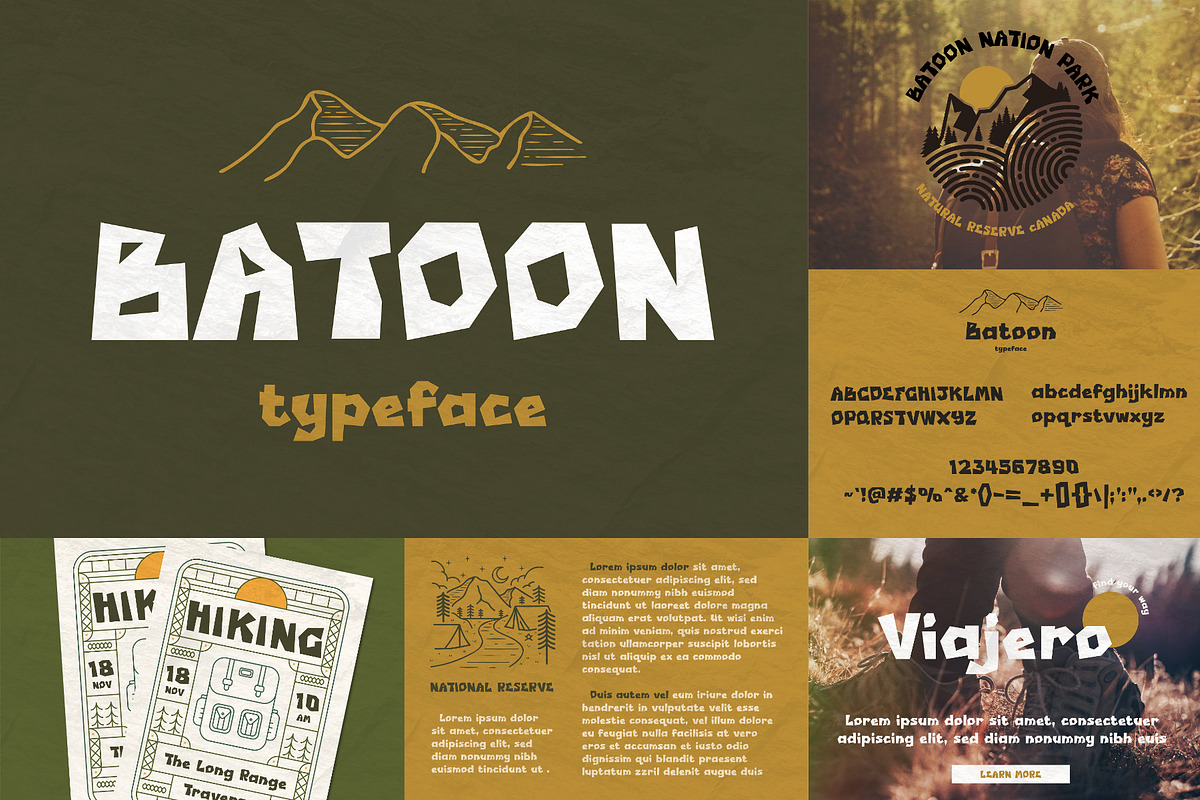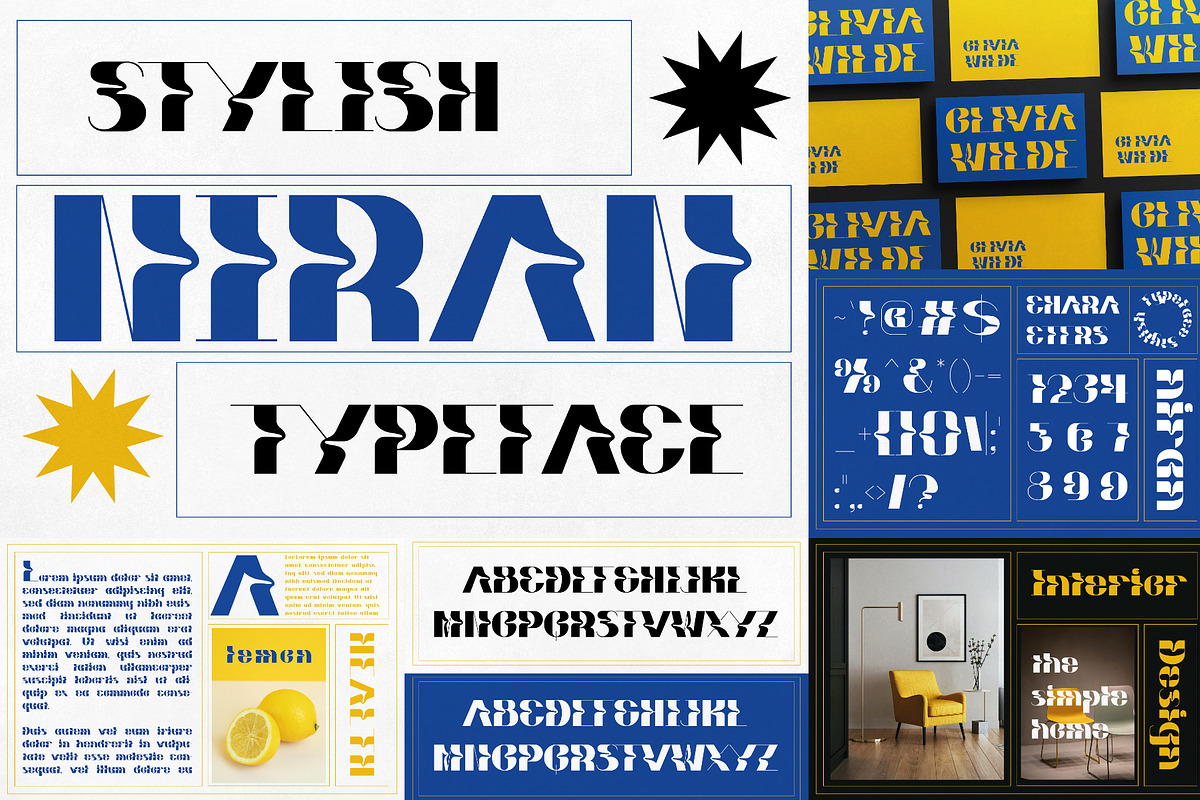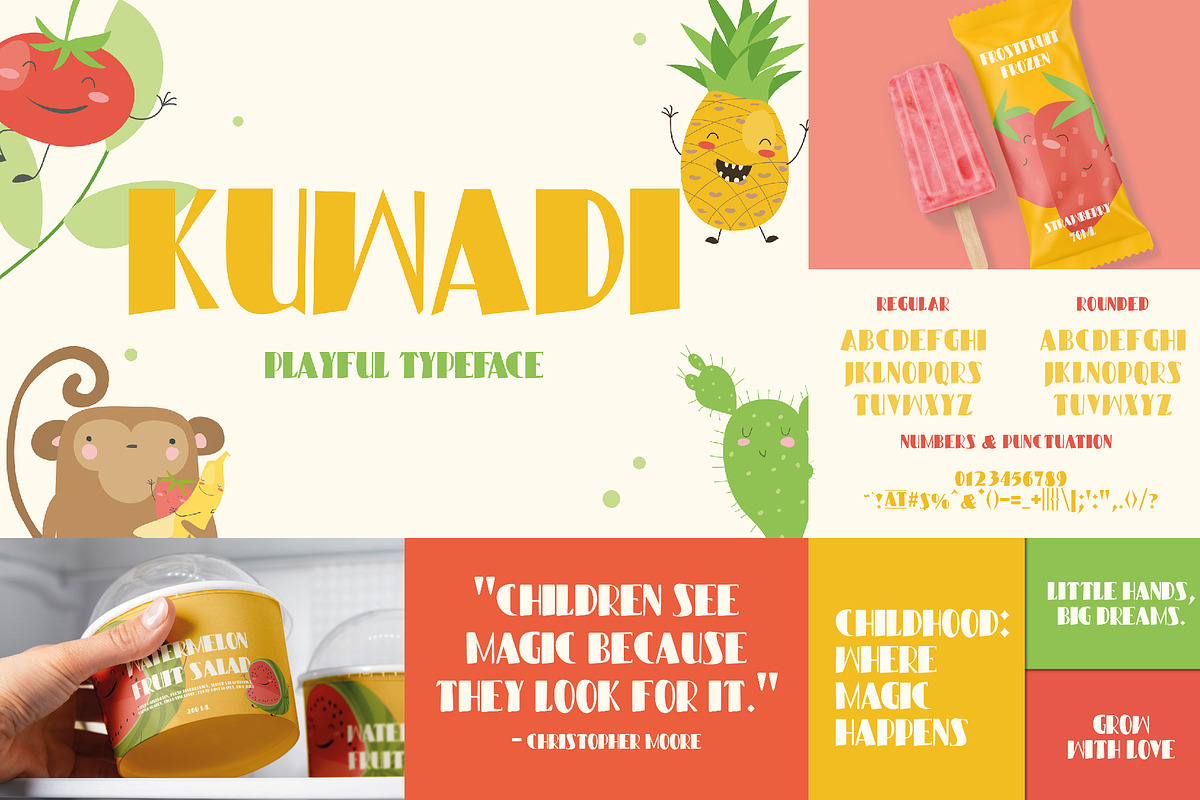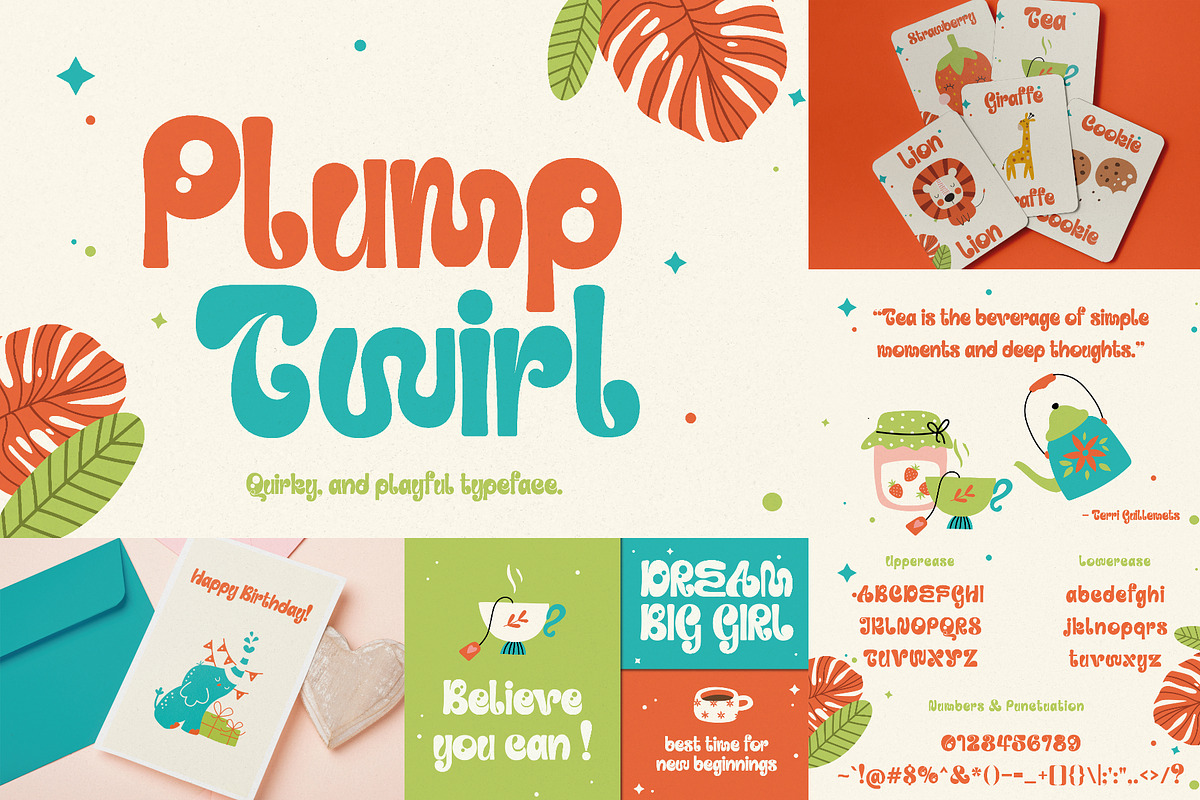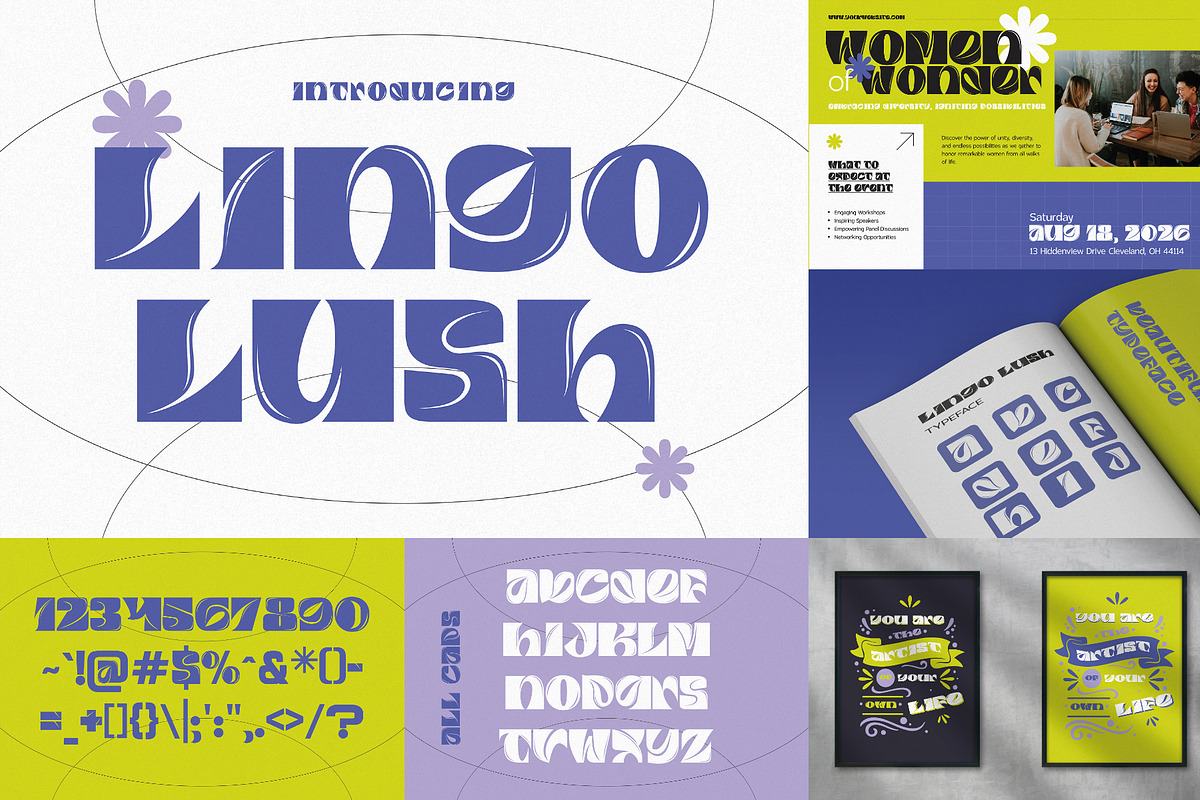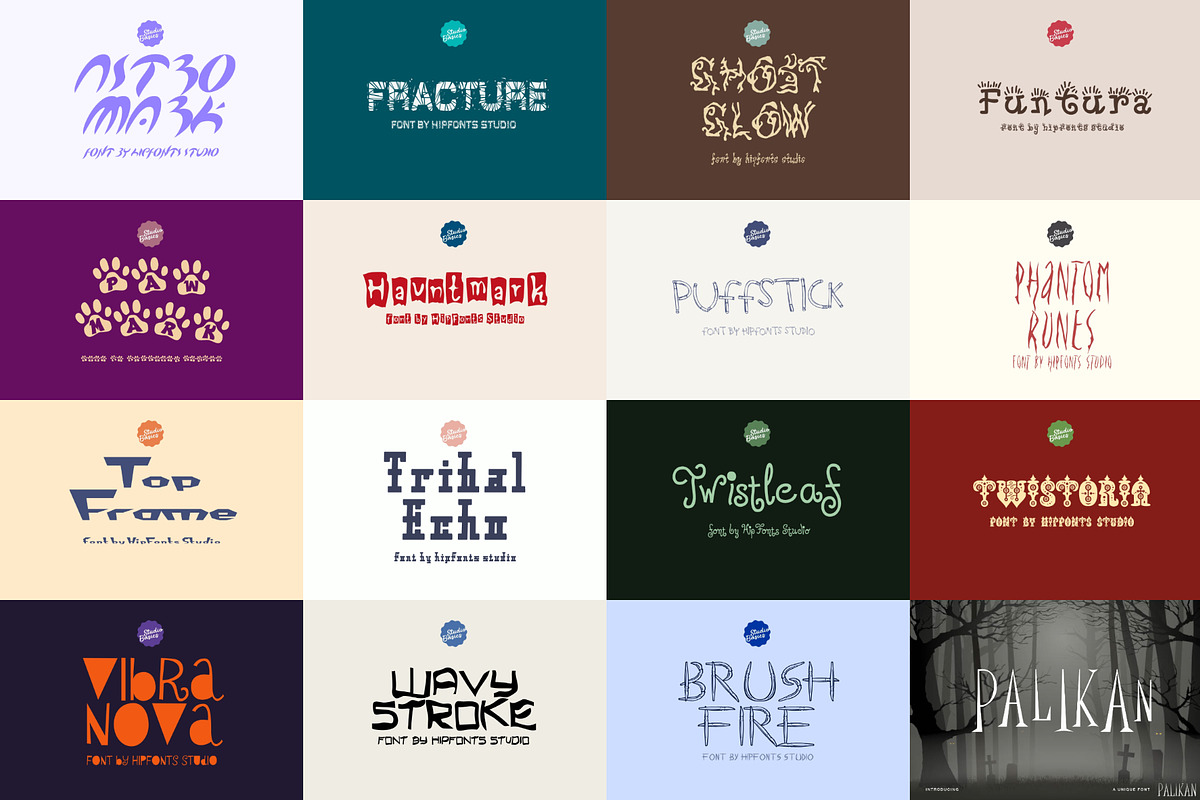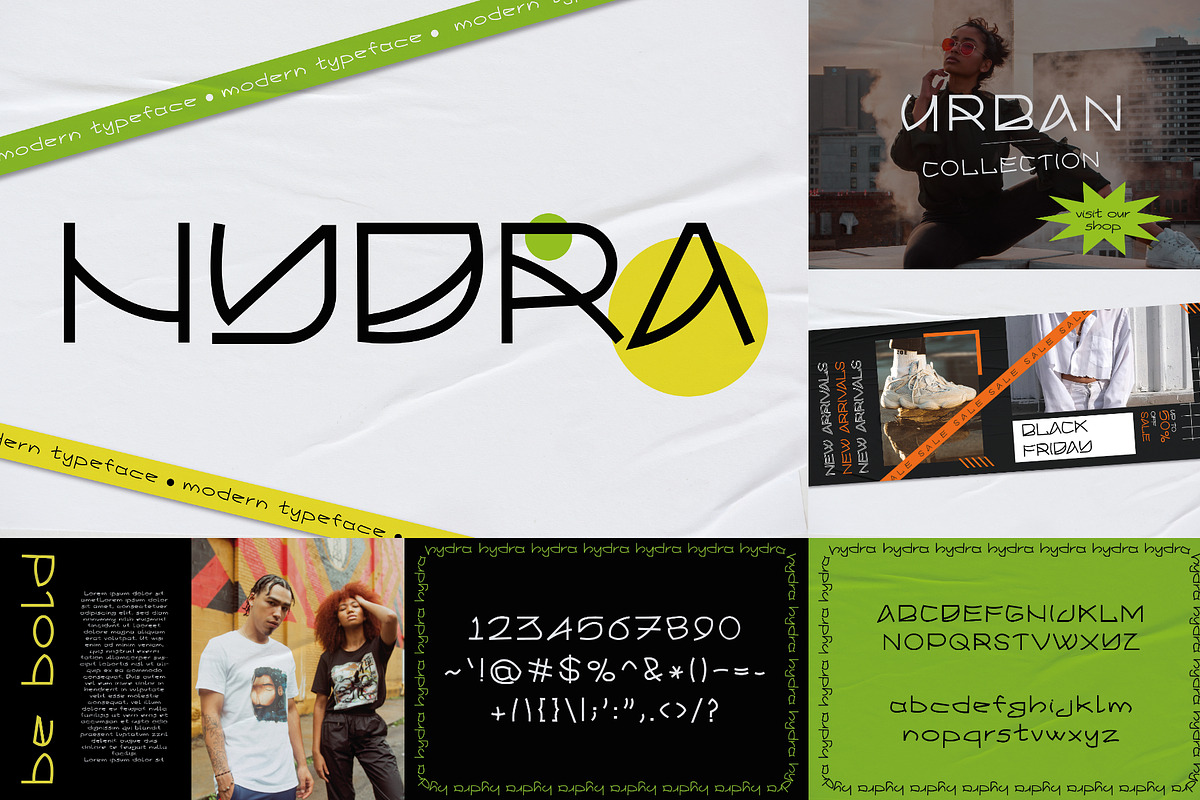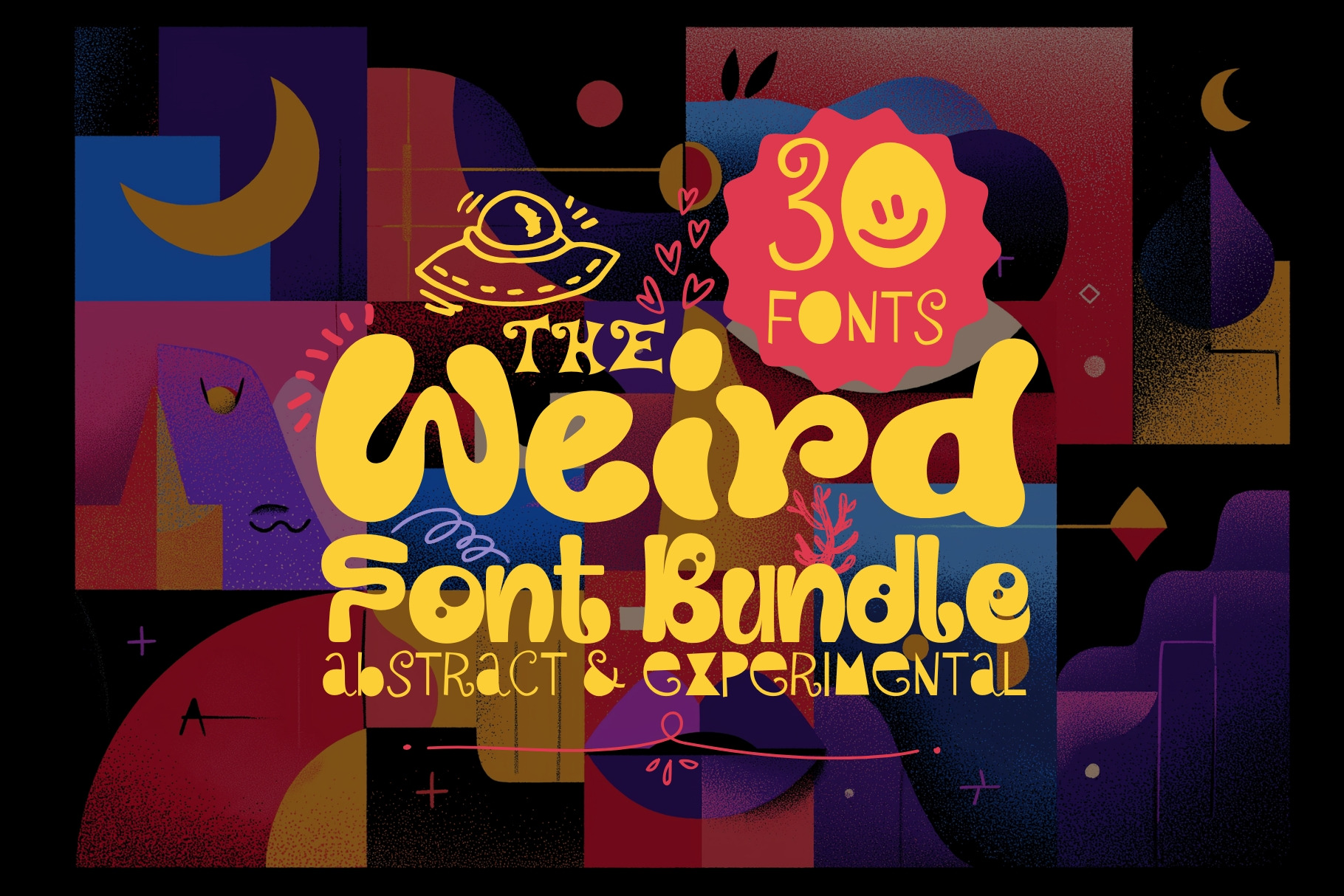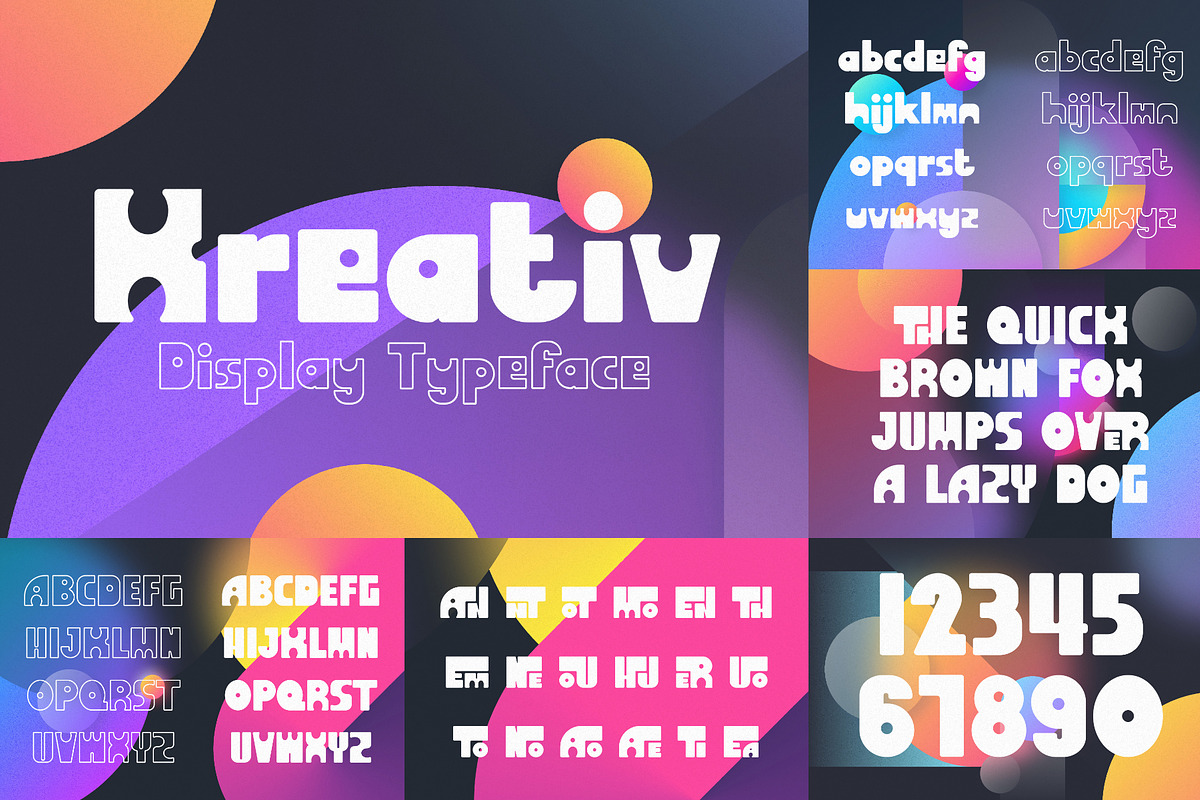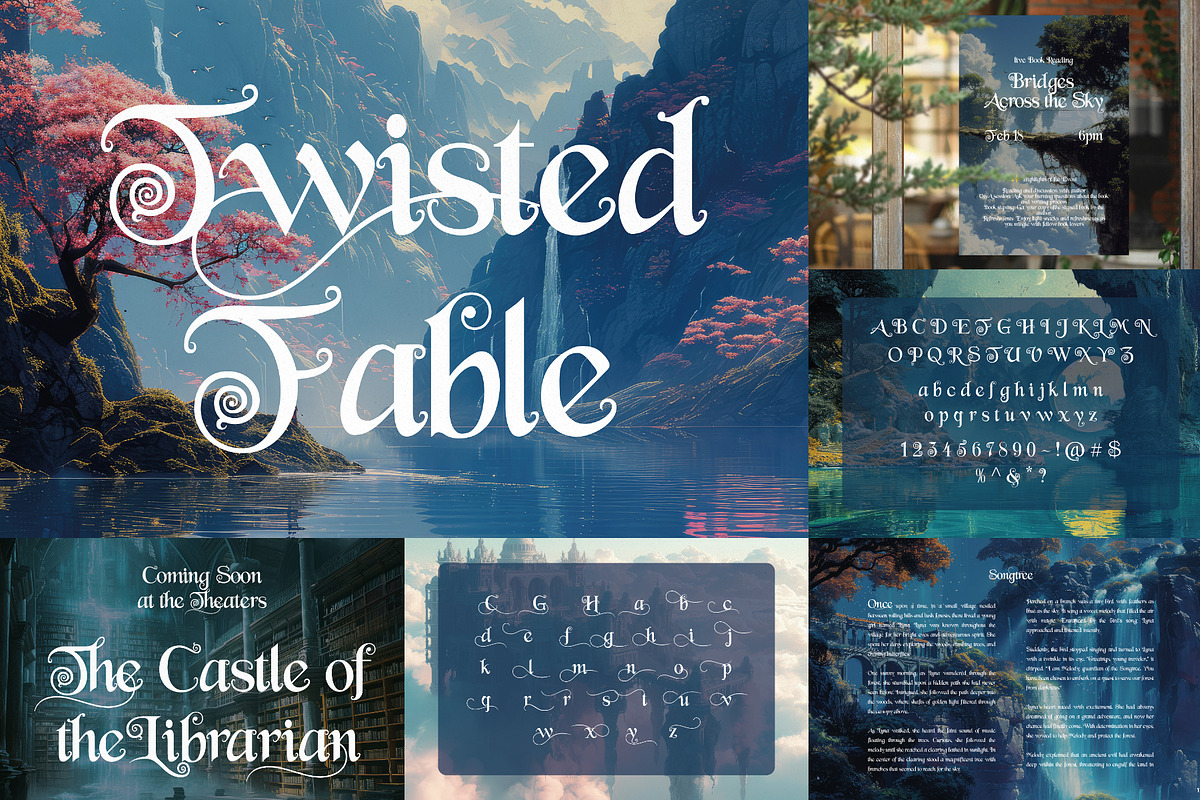
Weird Font Bundle - 30 Typefaces!
Break the rules of ordinary typography with The Weird Font Bundle—a daring collection of 30 unique, abstract, and experimental fonts designed to stop the scroll and spark curiosity.
This bundle is made for designers who want their work to feel unpredictable, expressive, and unforgettable. Every font pushes beyond traditional letterforms, embracing odd shapes, playful chaos, and artistic distortion—perfect for projects that need personality and edge.
Whether you’re designing posters, album covers, branding, social media graphics, or experimental layouts, these fonts turn simple words into visual statements.
✔️ 30 Weird & Abstract Display Fonts Each font is completely unique, featuring unconventional forms, unexpected rhythms, and bold visual character.
✔️ Designed to Stand Out Created specifically to grab attention—ideal for scroll-stopping designs, bold headlines, and expressive typography.
✔️ Perfect for Creative Projects Great for posters, logos, branding, album artwork, fashion graphics, editorial layouts, zines, digital art, and modern marketing visuals.
✔️ For Designers Who Break the Mold Ideal for graphic designers, artists, musicians, content creators, and brands that want something different.
🎭 Not clean. Not safe. Not boring. The Weird Font Bundle is for creators who want their typography to feel bold, strange, expressive—and impossible to ignore.
If you’re tired of playing it safe, this bundle is your permission to get weird.